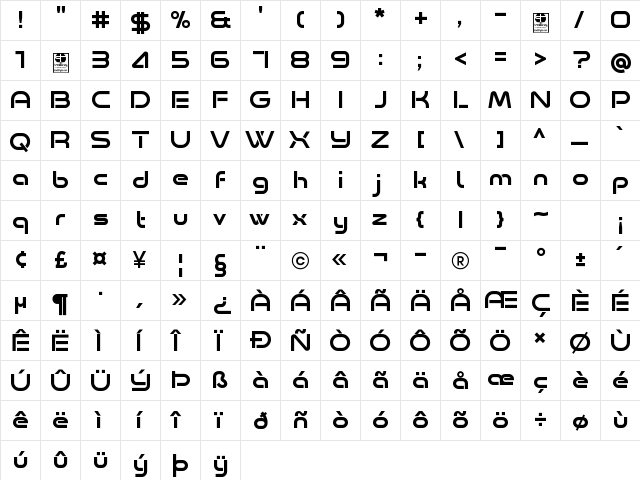
Minalis Demo Regular
| Designer | Mehmet Abac |
Design Context for Minalis Demo Typeface
Minalis Demo offers clean, dependable letterforms without strong stylistic allegiance, making it a practical choice for designers who need flexibility.